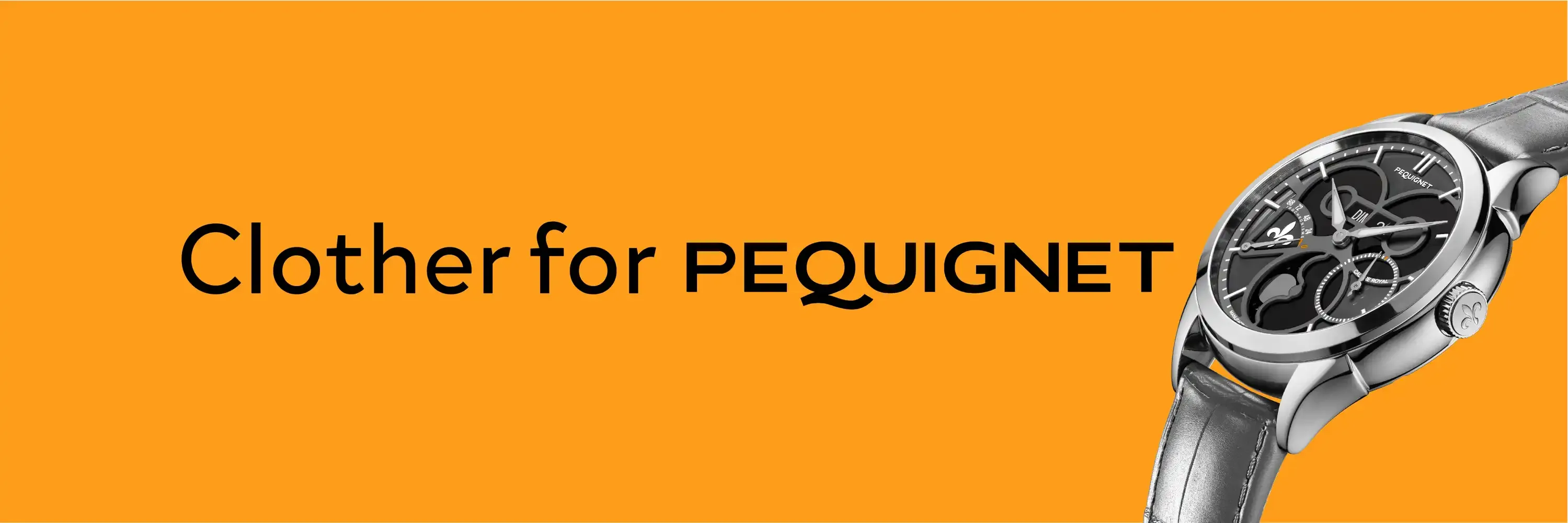
Clother for Pequignet
Introducing Clother for Pequignet
Pequignet, a renowned luxury watchmaker, has chosen the Clother font for their website redesign. This choice aligns with their brand’s commitment to elegance and sophistication. Clother, a modern and versatile typeface, has become an integral part of Pequignet’s digital presence, enhancing readability and aesthetic appeal.
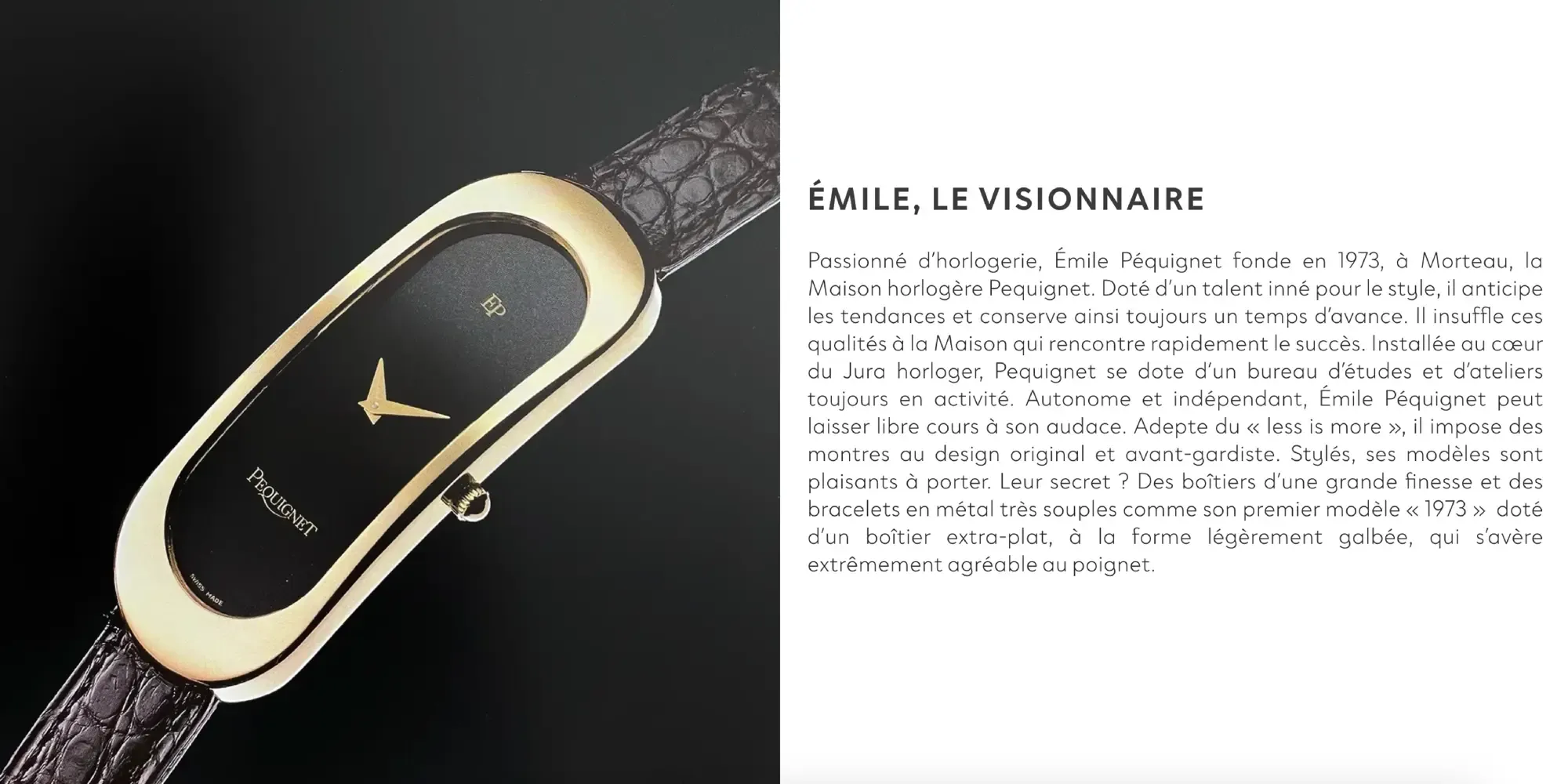
Why Clother
Versatility and Elegance: Clother’s design combines modern elegance with functional versatility, making it suitable for various applications. Its clean lines and balanced proportions ensure readability without sacrificing style.
Comprehensive Glyph Set: Clother includes a wide range of glyphs, supporting multiple languages and ensuring consistent communication across different regions.
Design Harmony: The font’s subtle curves and contemporary feel complement the luxurious and timeless nature of Pequignet’s products, creating a cohesive brand experience.
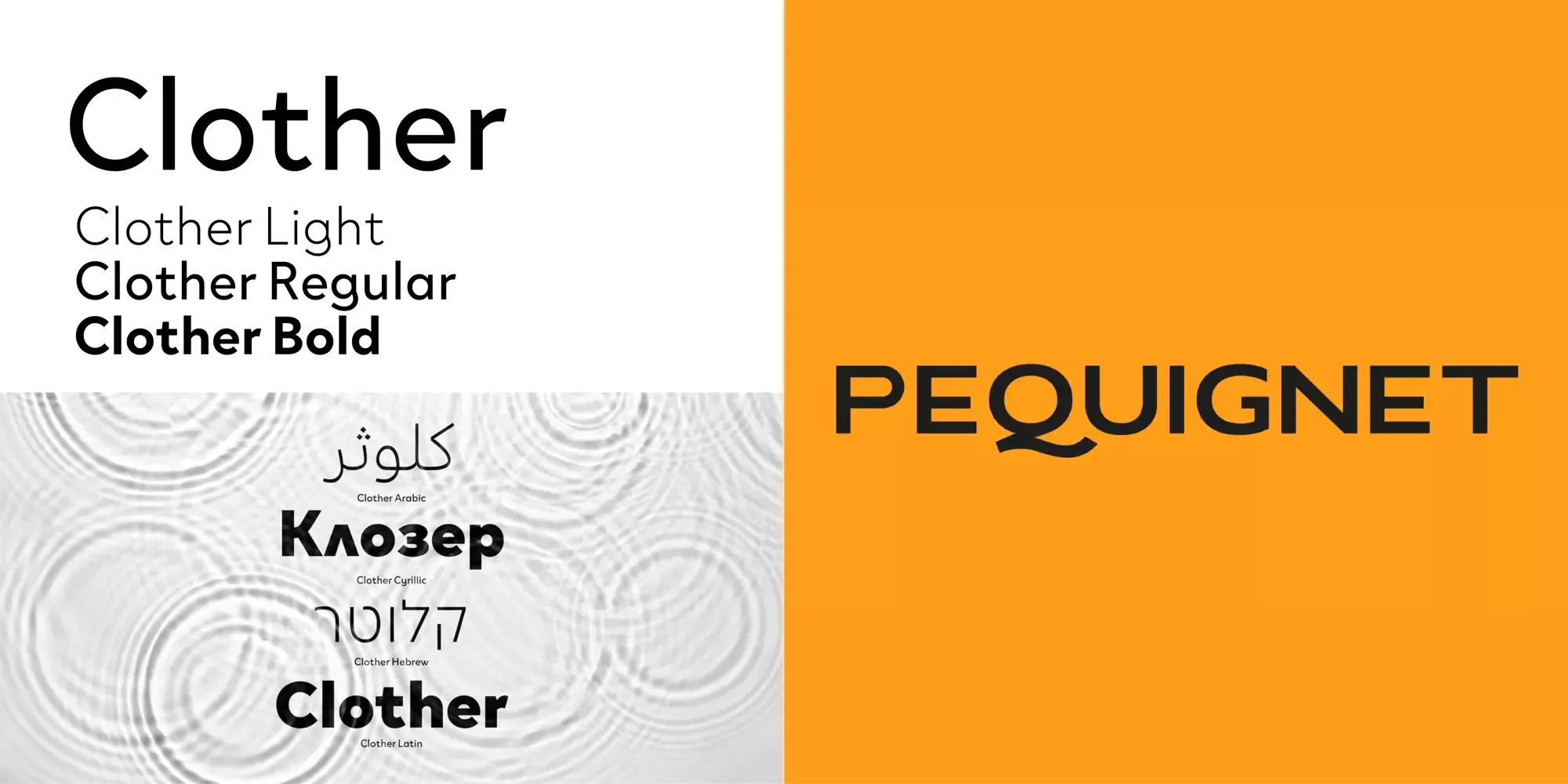
Clother in Action
Body Text: On Pequignet’s website, Clother is primarily used for body text, ensuring clear and legible content. The font’s readability at different sizes enhances the user experience, making information about their exquisite timepieces accessible and engaging.
Brand Consistency: The consistent use of Clother across the website helps maintain brand uniformity, reinforcing Pequignet’s identity as a purveyor of luxury and precision.
Enhanced User Experience: By choosing Clother, Pequignet enhances the overall user experience on their website. The font’s modern look aligns with contemporary web design standards, contributing to a visually appealing and user-friendly interface.
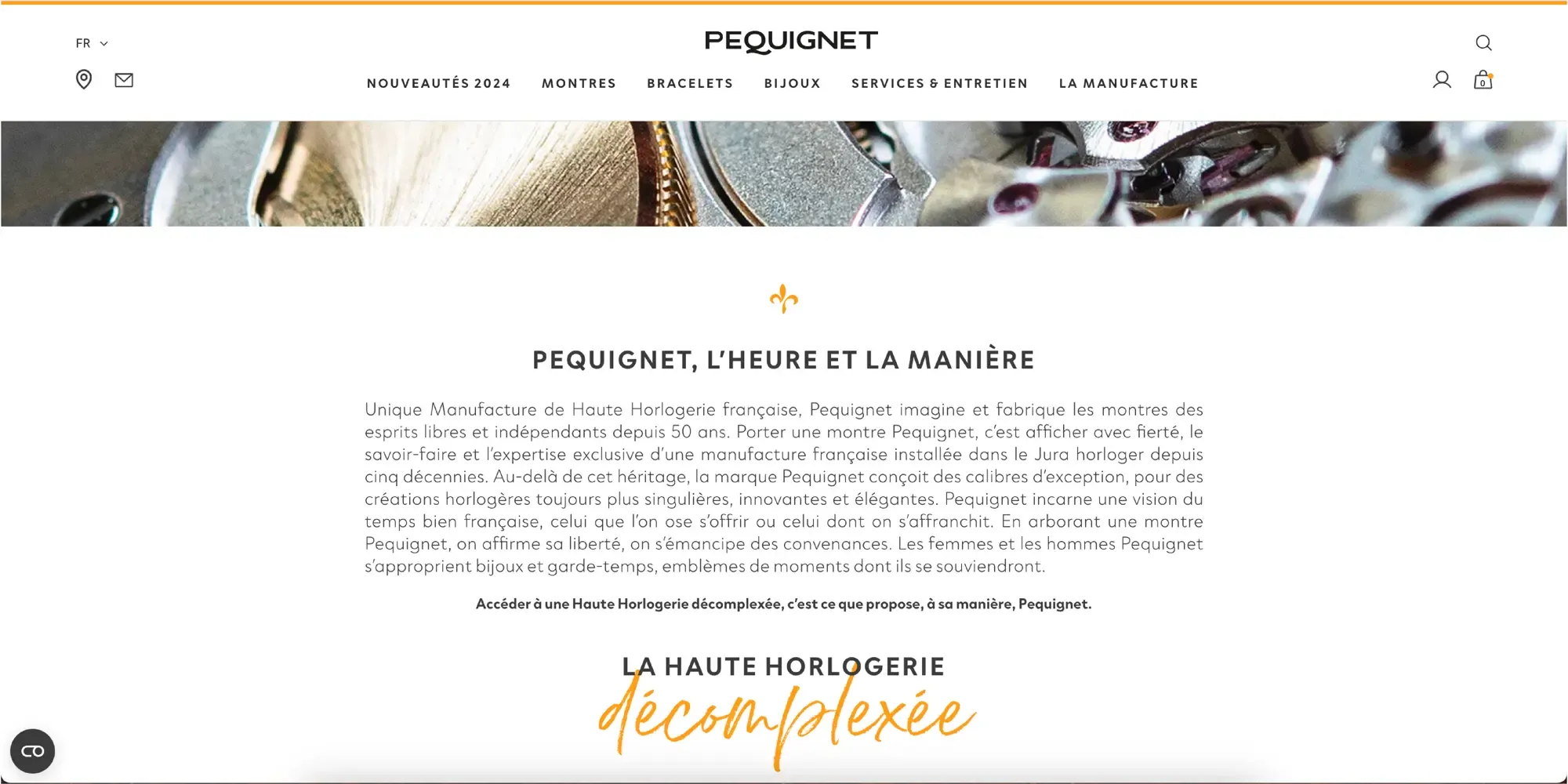
Conclusion
In conclusion, Clother is an excellent fit for Pequignet’s website, providing a perfect balance of readability and style. Its versatility and elegant design enhance Pequignet’s digital presence, ensuring a cohesive and engaging experience for visitors. The choice of Clother underscores Pequignet’s dedication to quality and excellence in every aspect of their brand.